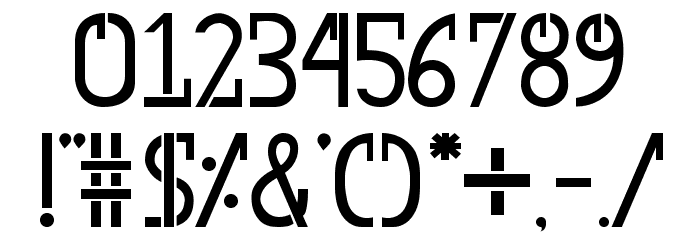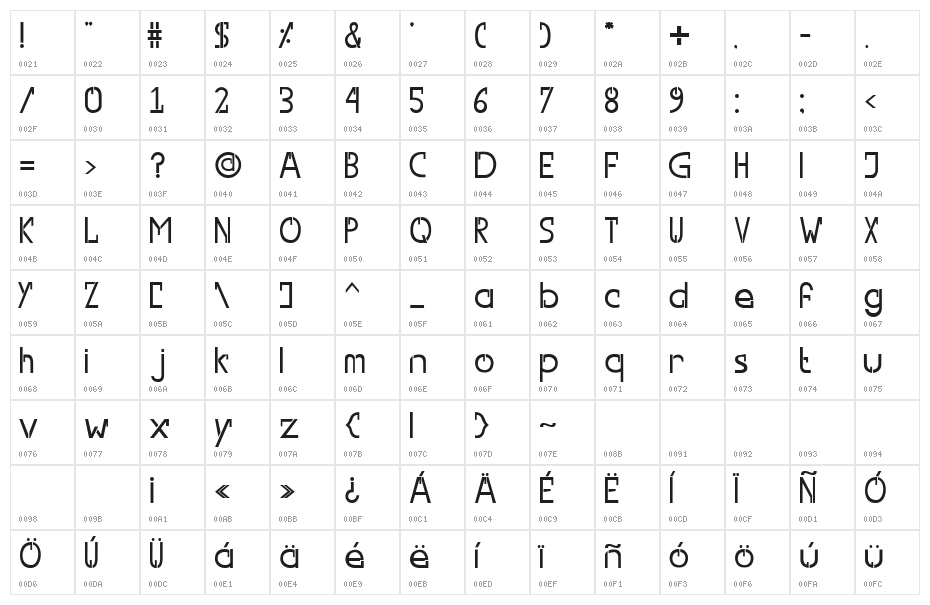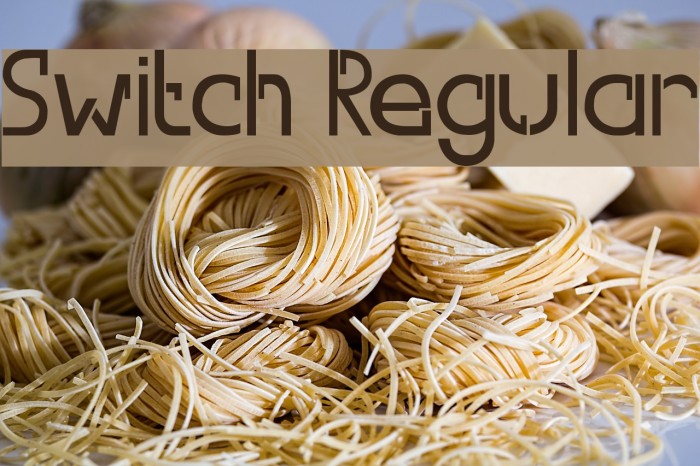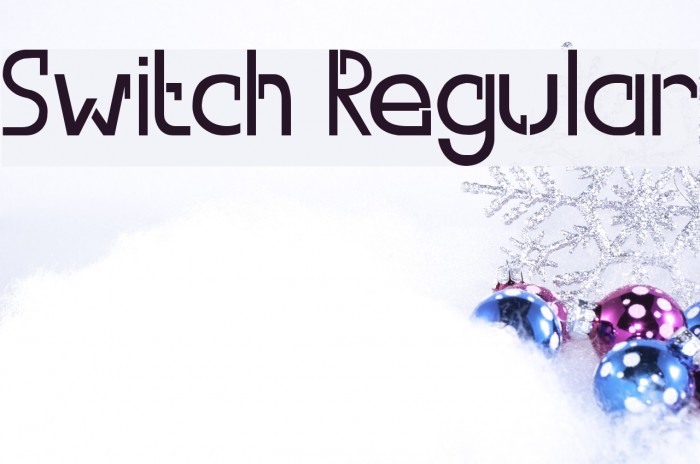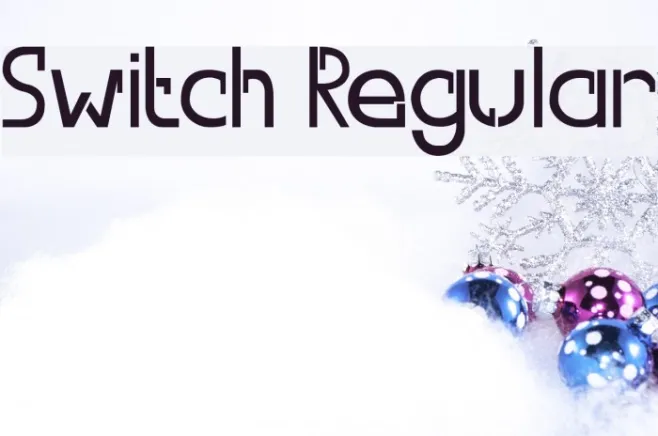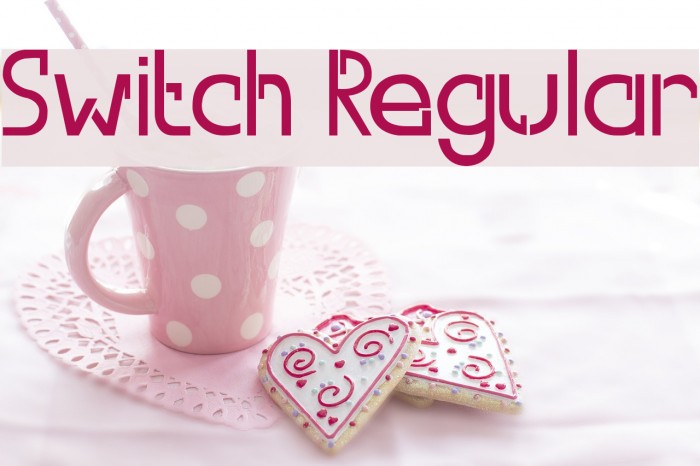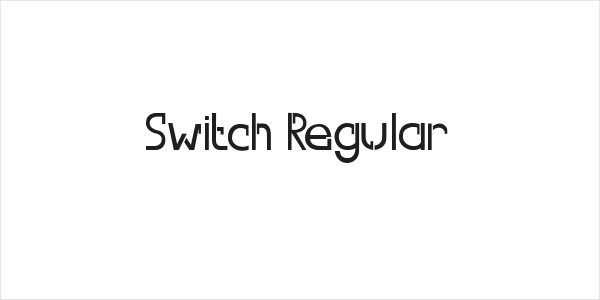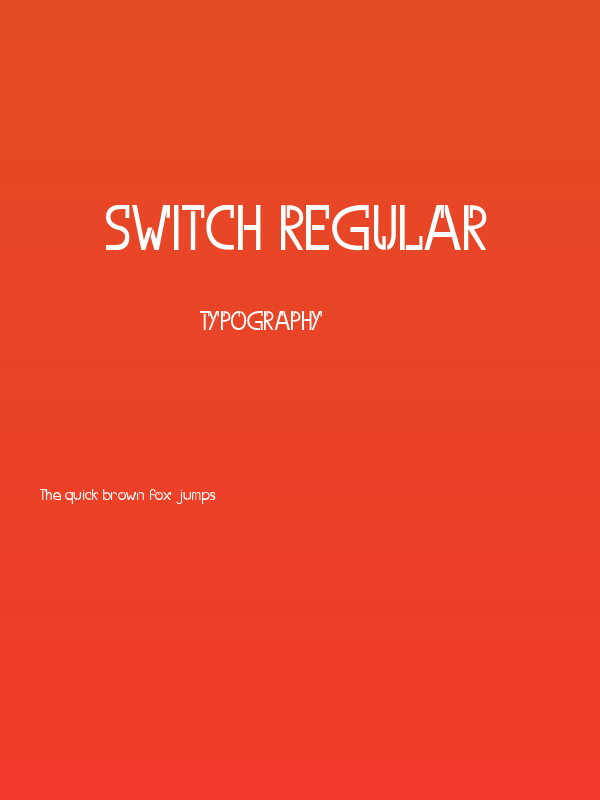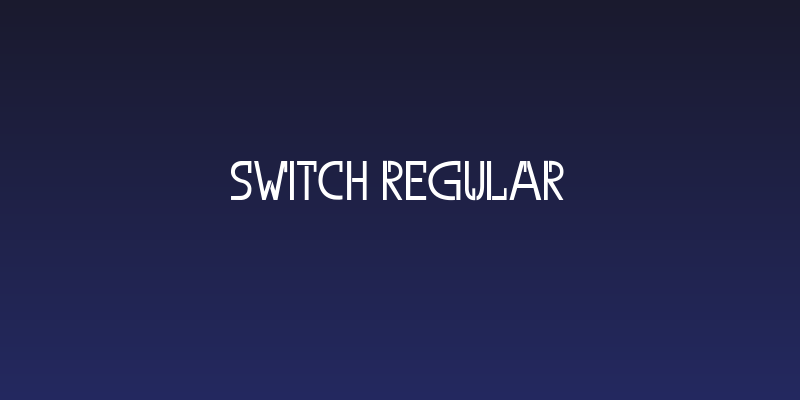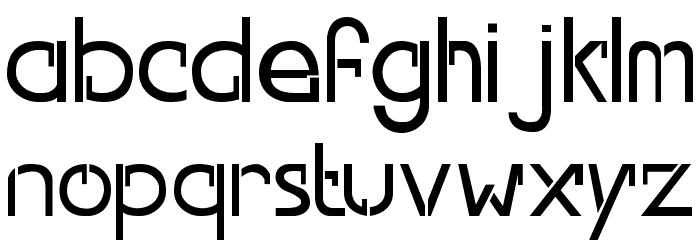
Switch Regular Font
Switch Regular Description
This font features a modern and geometric design with clean lines and a distinct, futuristic appearance. The characters are constructed with a combination of straight lines and curves, creating a unique and stylish look. The uppercase letters are bold and striking, while the lowercase letters maintain a consistent style that complements the overall design. The numerals and special characters are crafted with the same attention to detail, ensuring a cohesive appearance across all elements. This font's design is both functional and visually appealing, making it suitable for a variety of applications.
| Proposed Projects | Ideal for branding, advertising, digital interfaces, and modern design projects. |